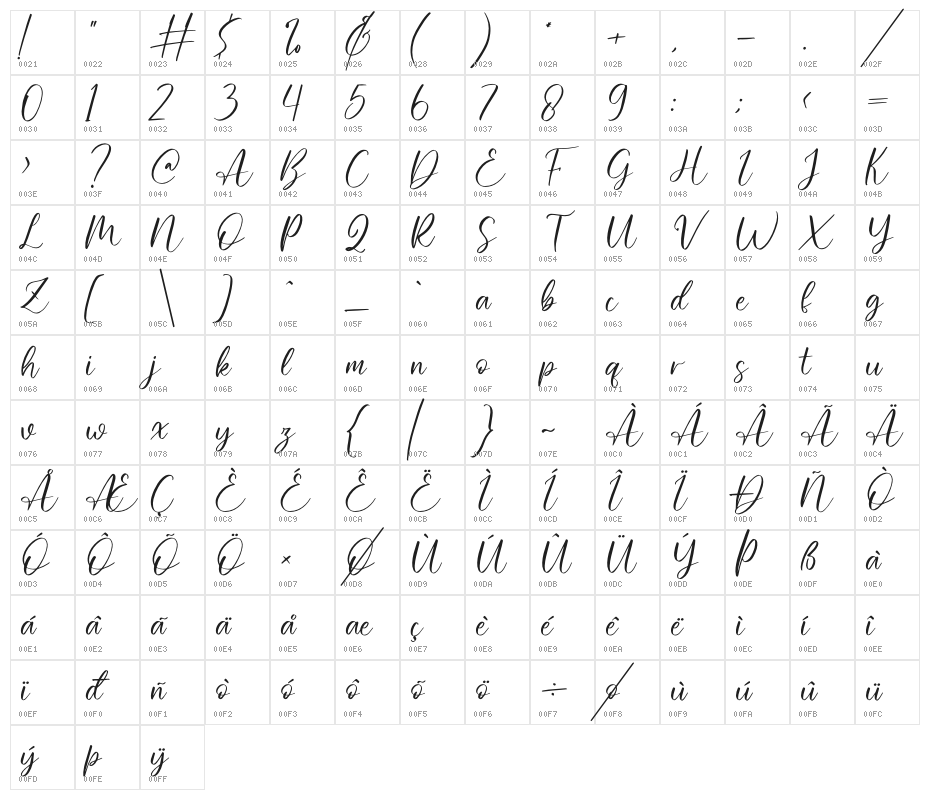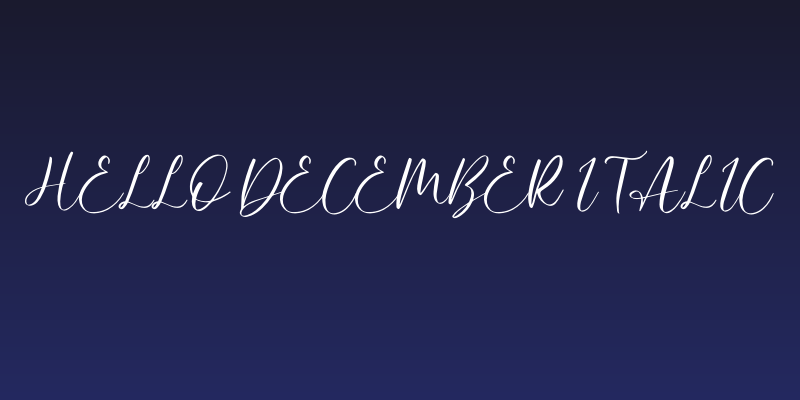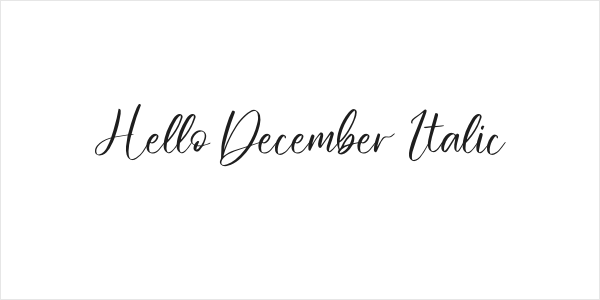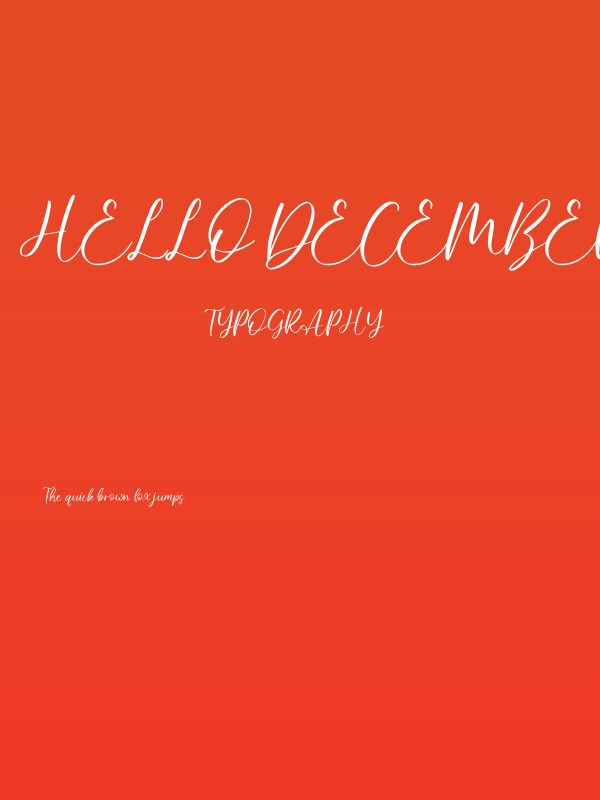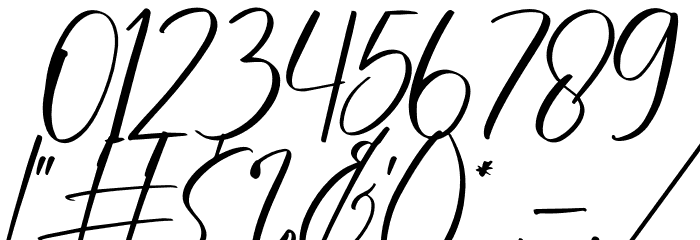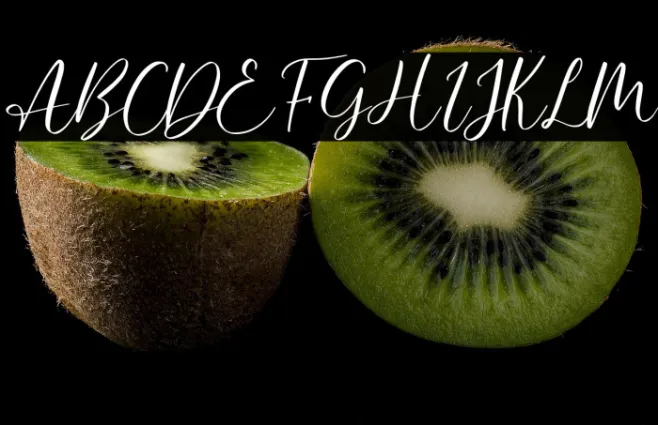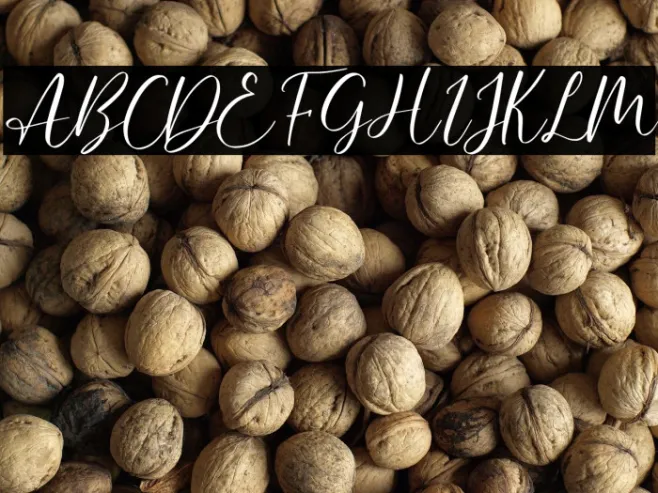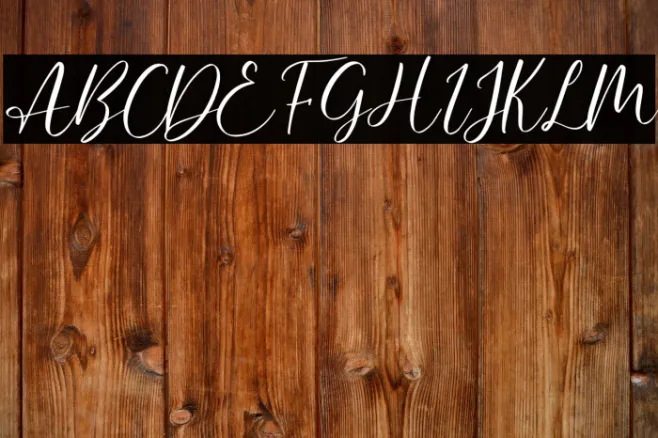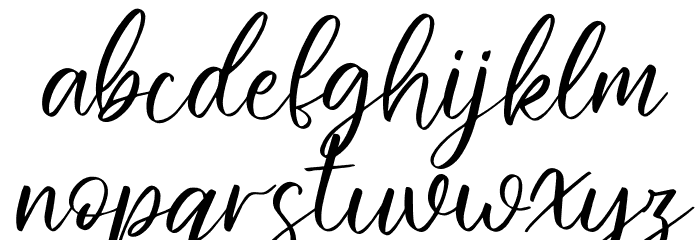
Hello December Italic Font
Hello December Italic Description
This font exudes a charming and elegant handwritten style, characterized by its fluid and cursive letterforms. The strokes are smooth and connected, giving it a natural flow that mimics the look of traditional calligraphy. The uppercase letters are slightly more elaborate, with graceful loops and swirls, while the lowercase letters maintain a consistent and harmonious appearance. The numbers and special characters are designed to complement the overall aesthetic, ensuring a cohesive look across all text elements. This font is perfect for adding a personal touch to any design project, making it ideal for invitations, greeting cards, and branding materials.